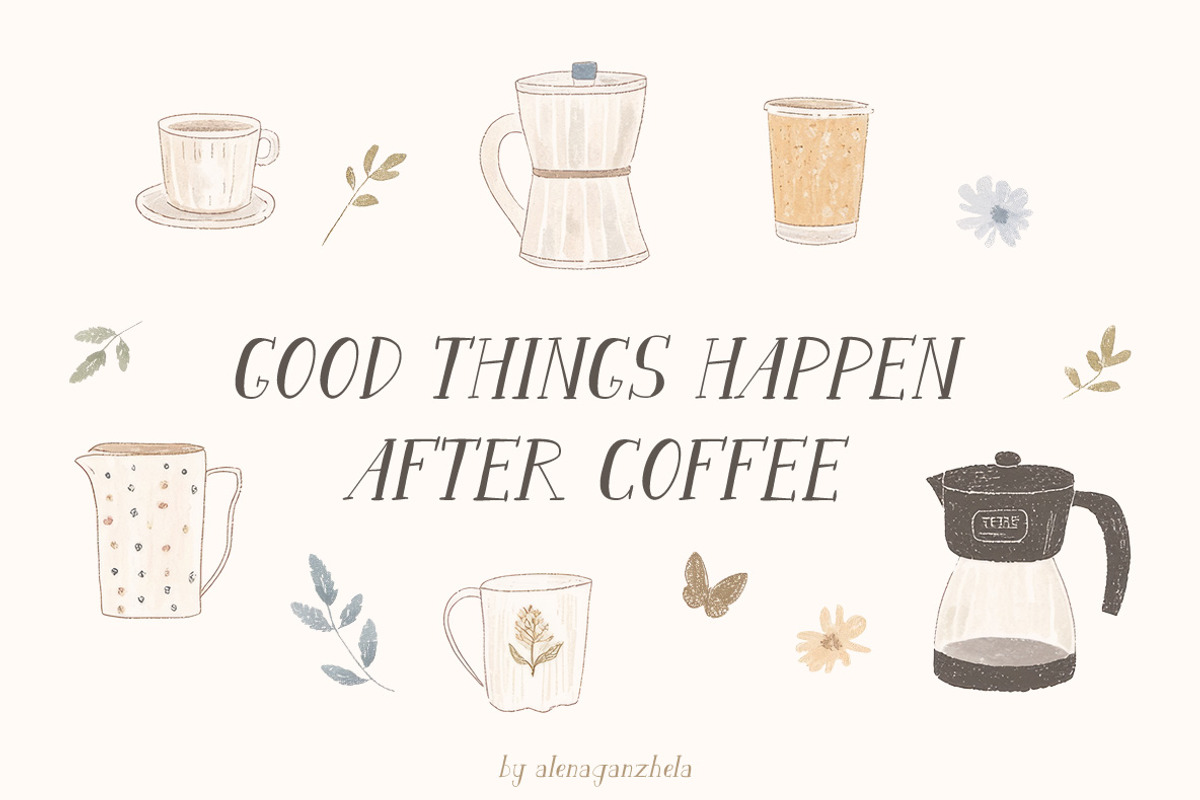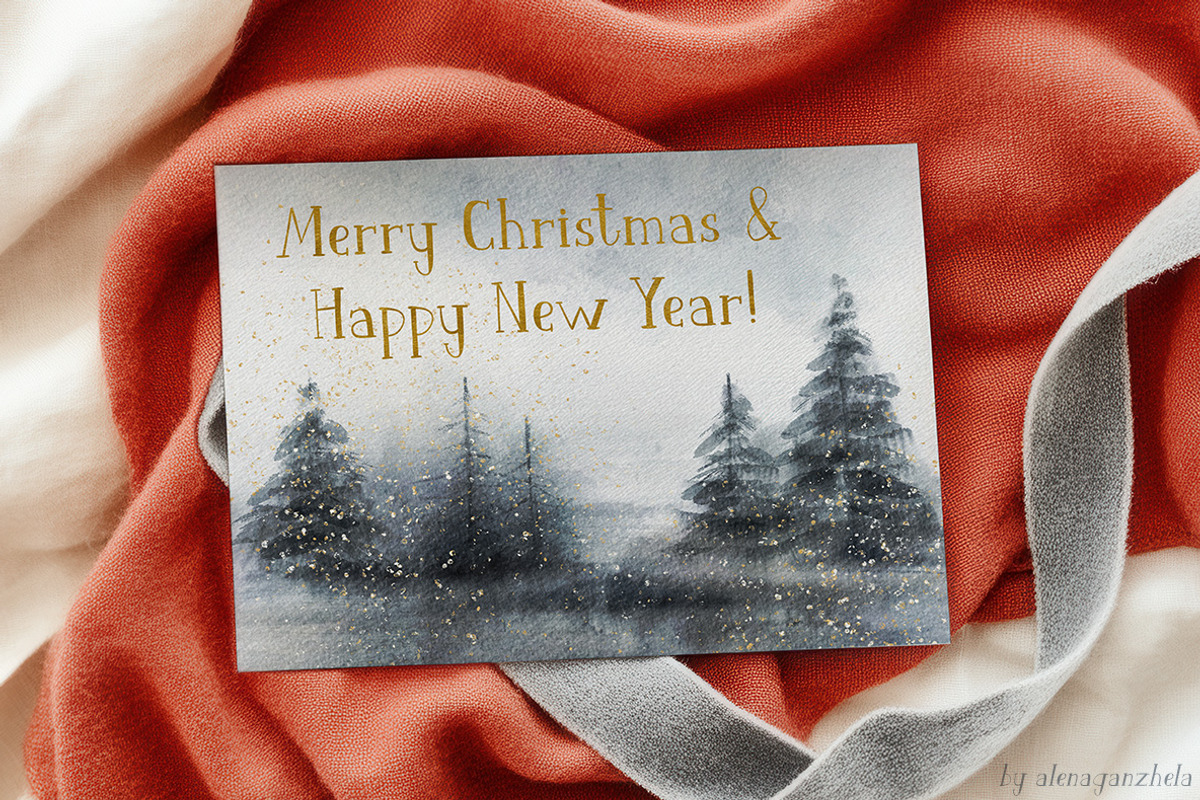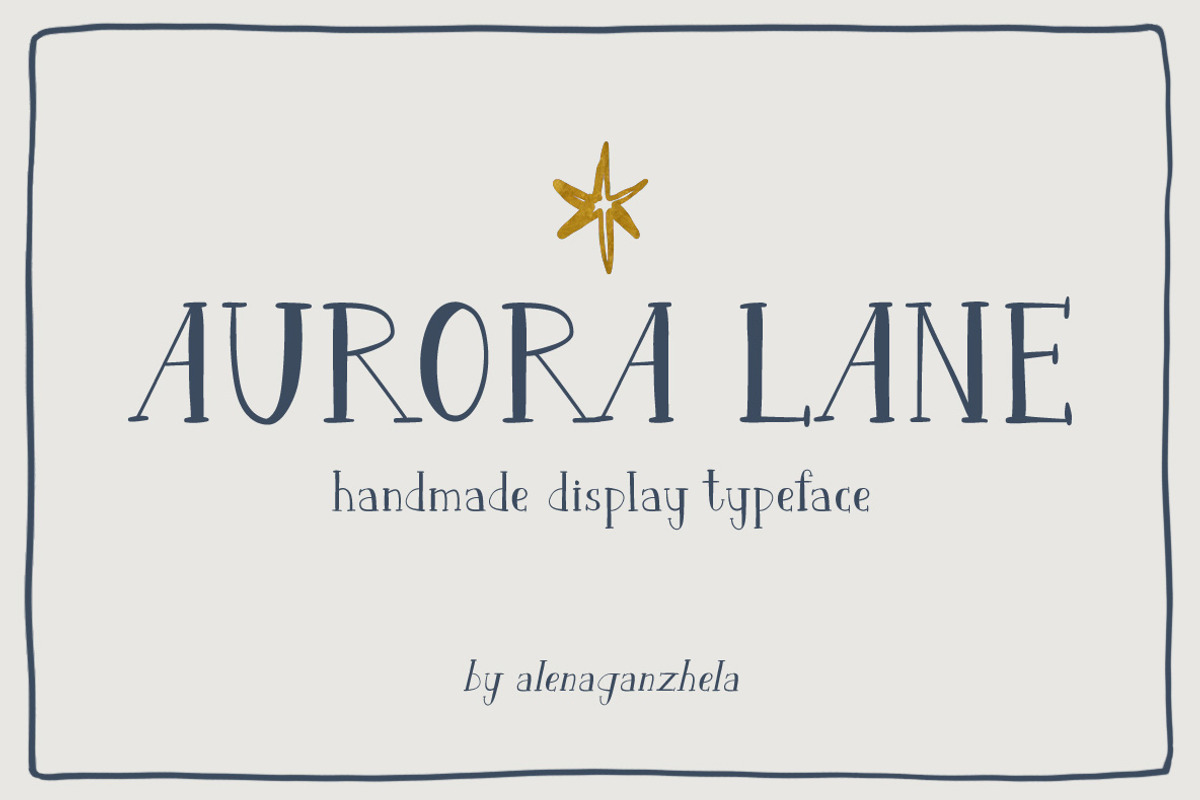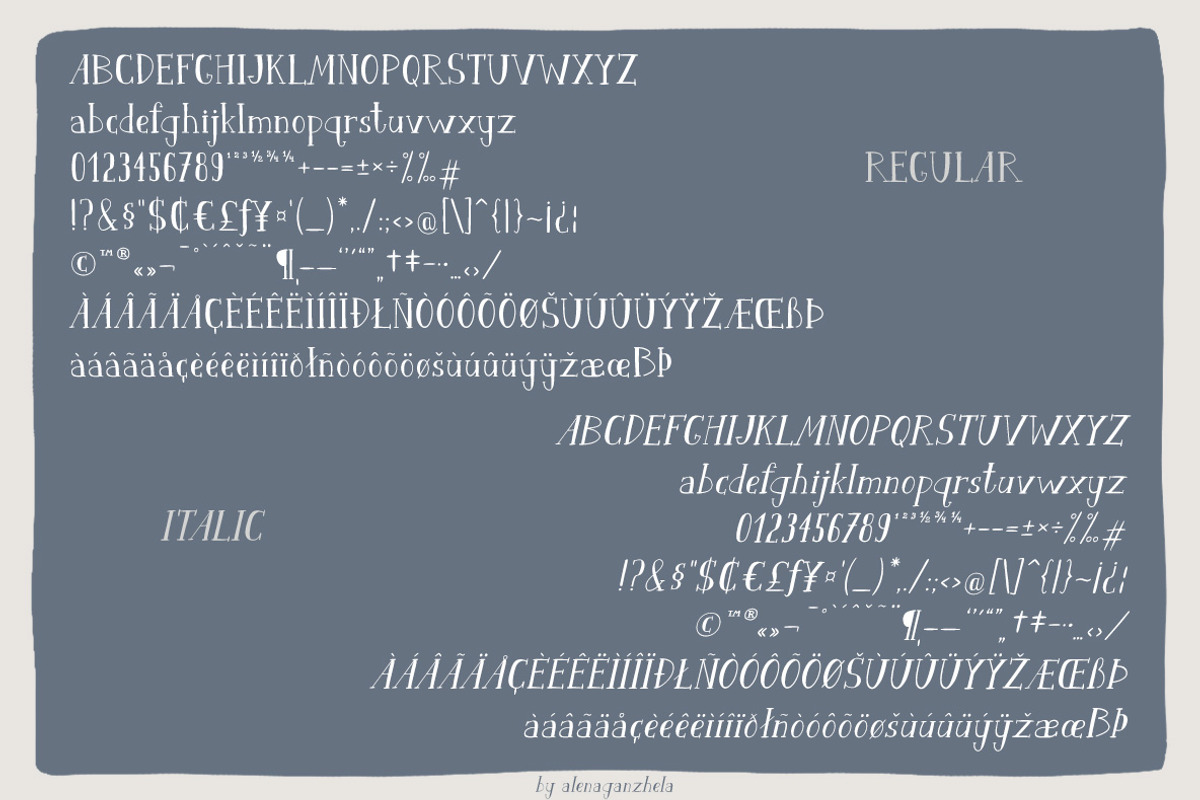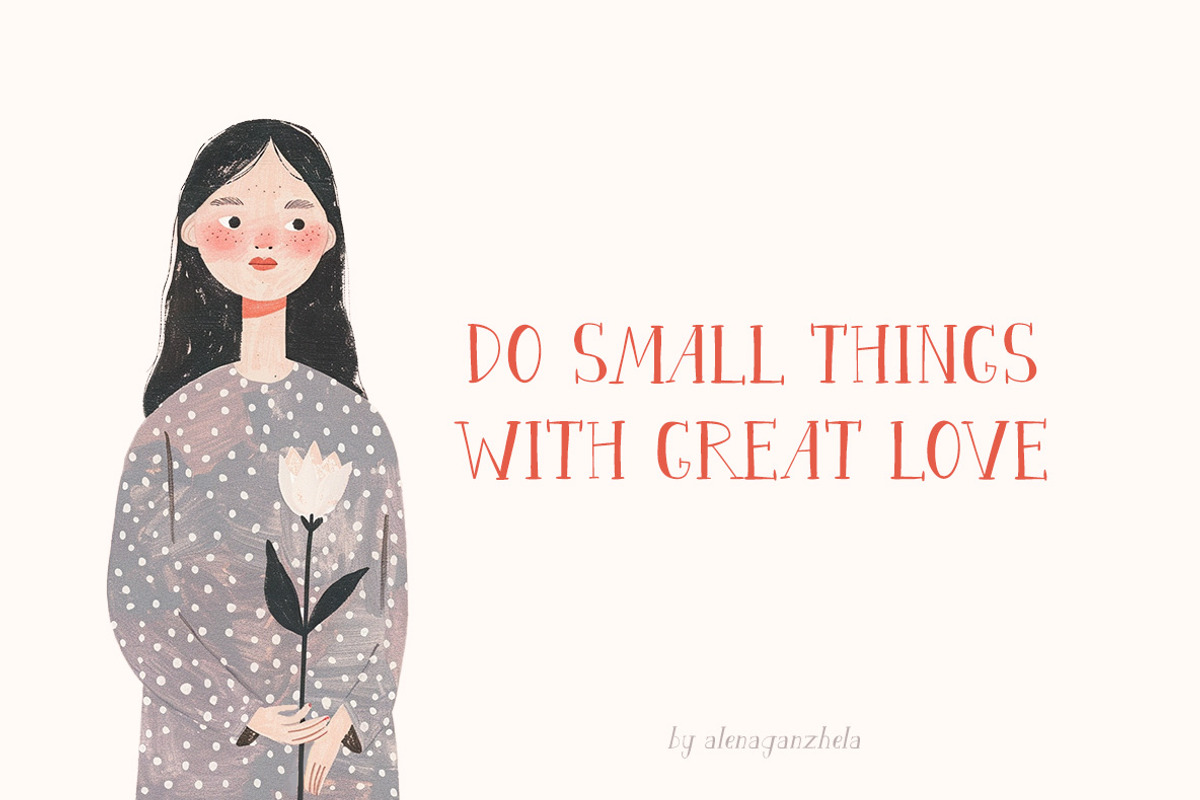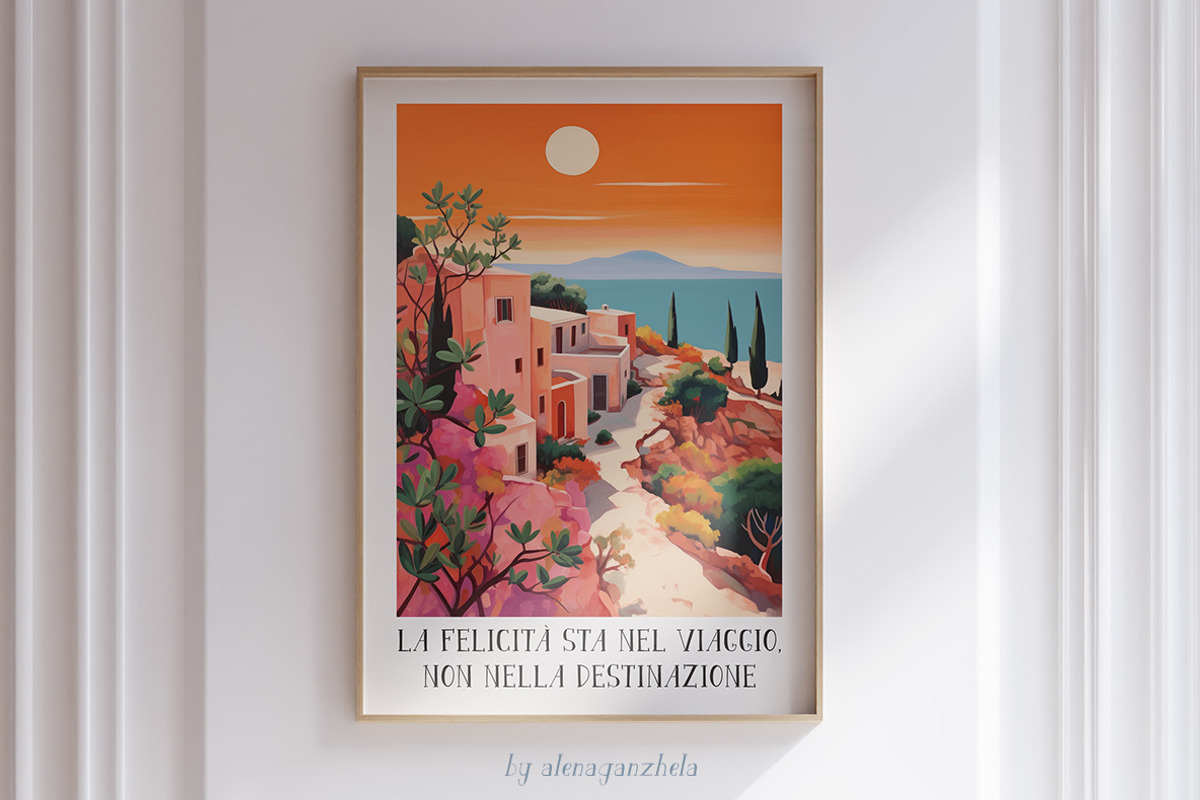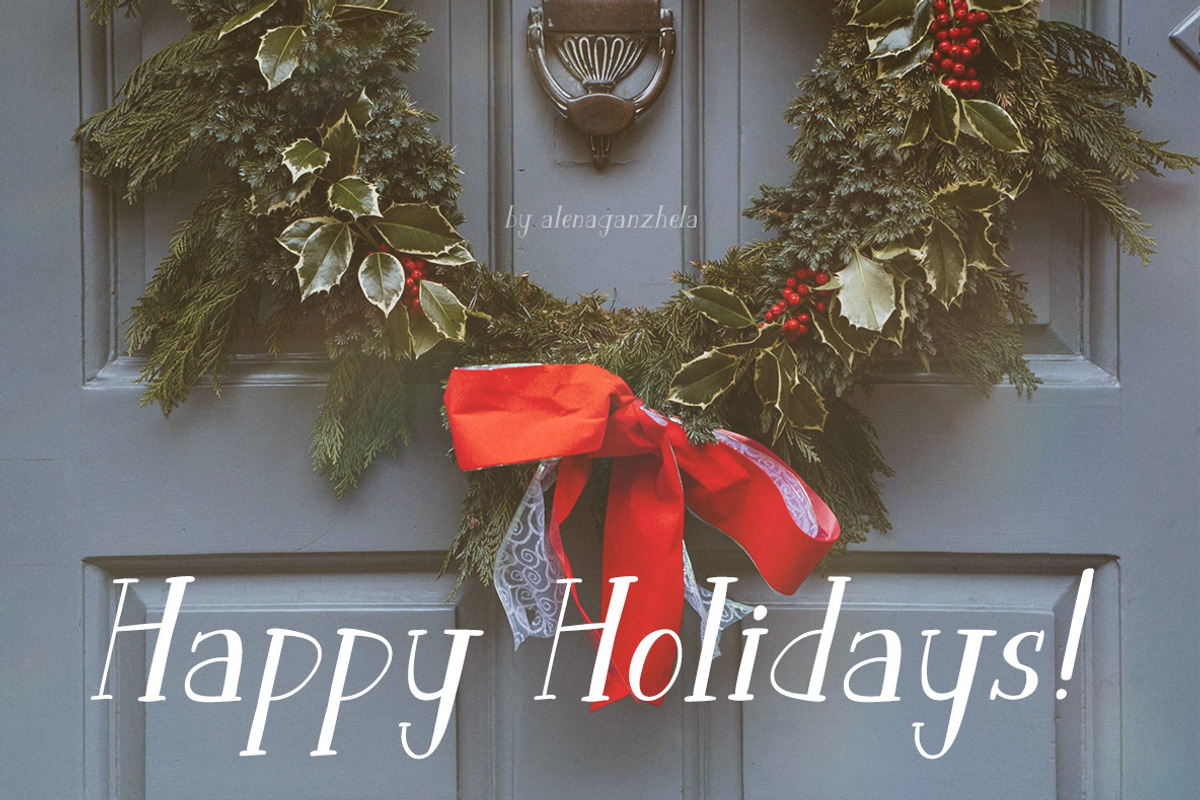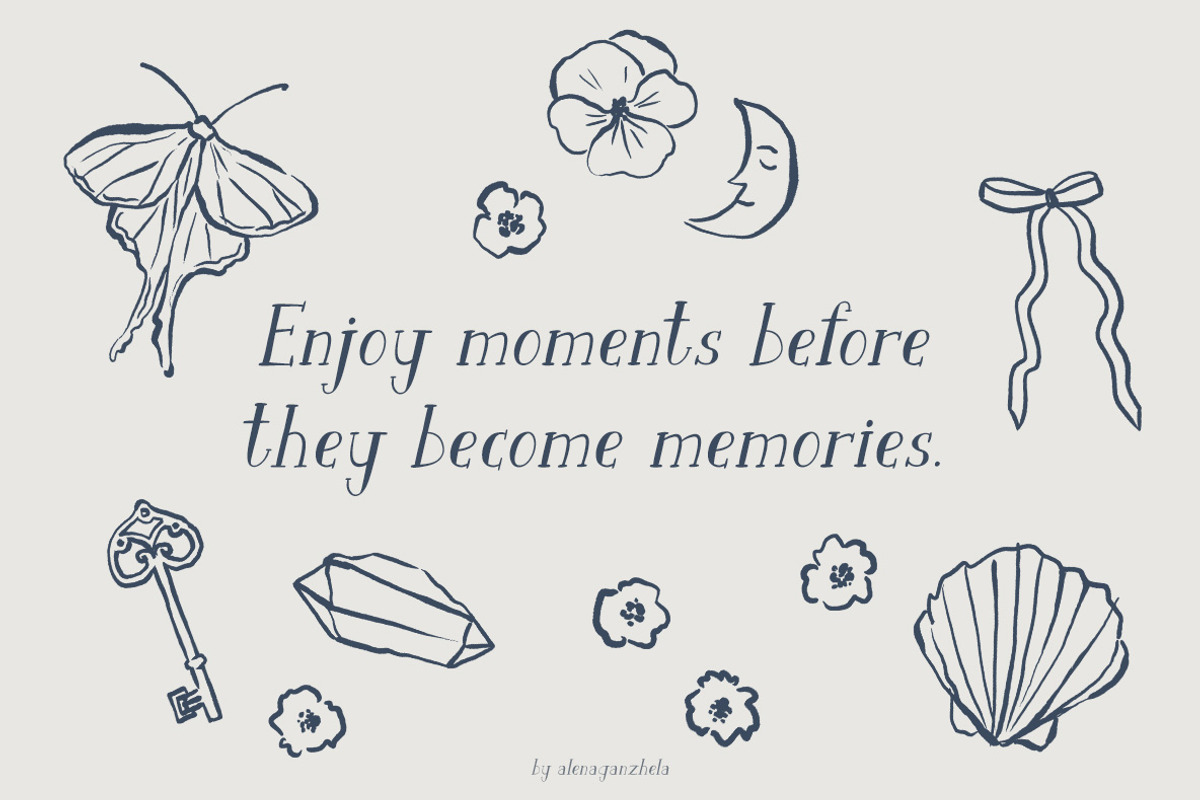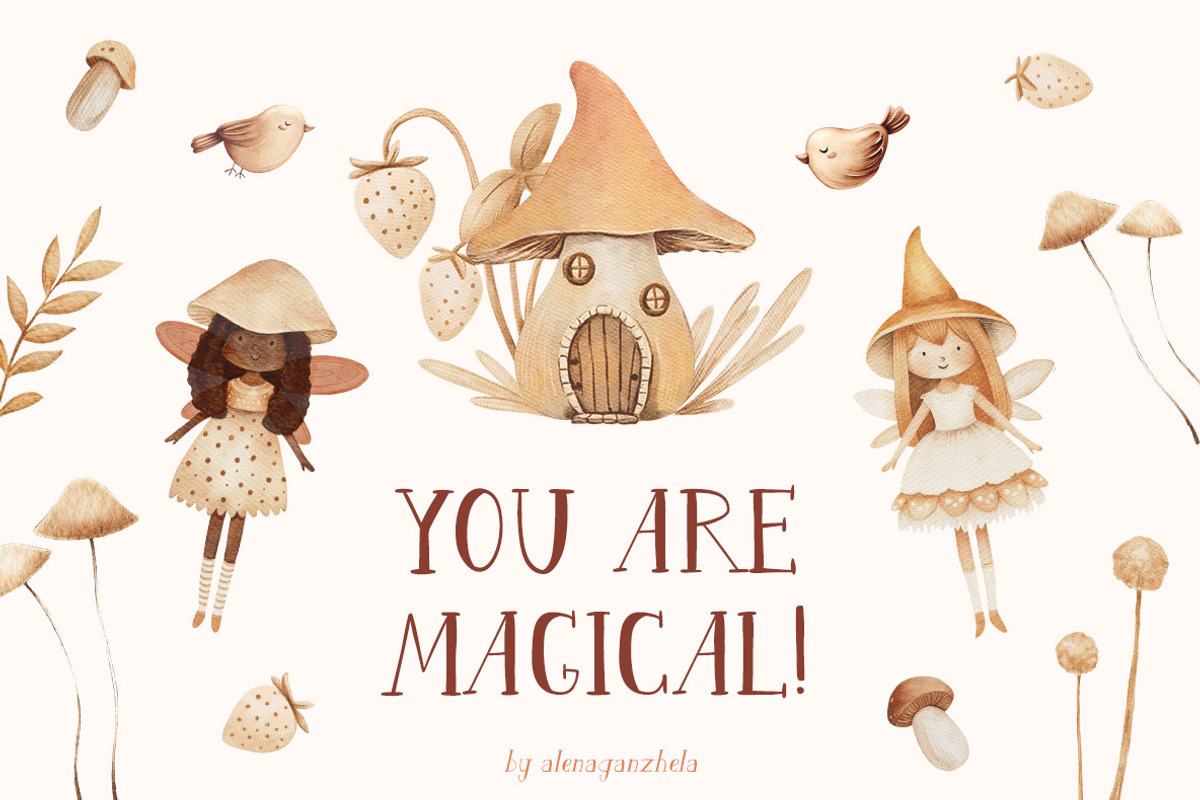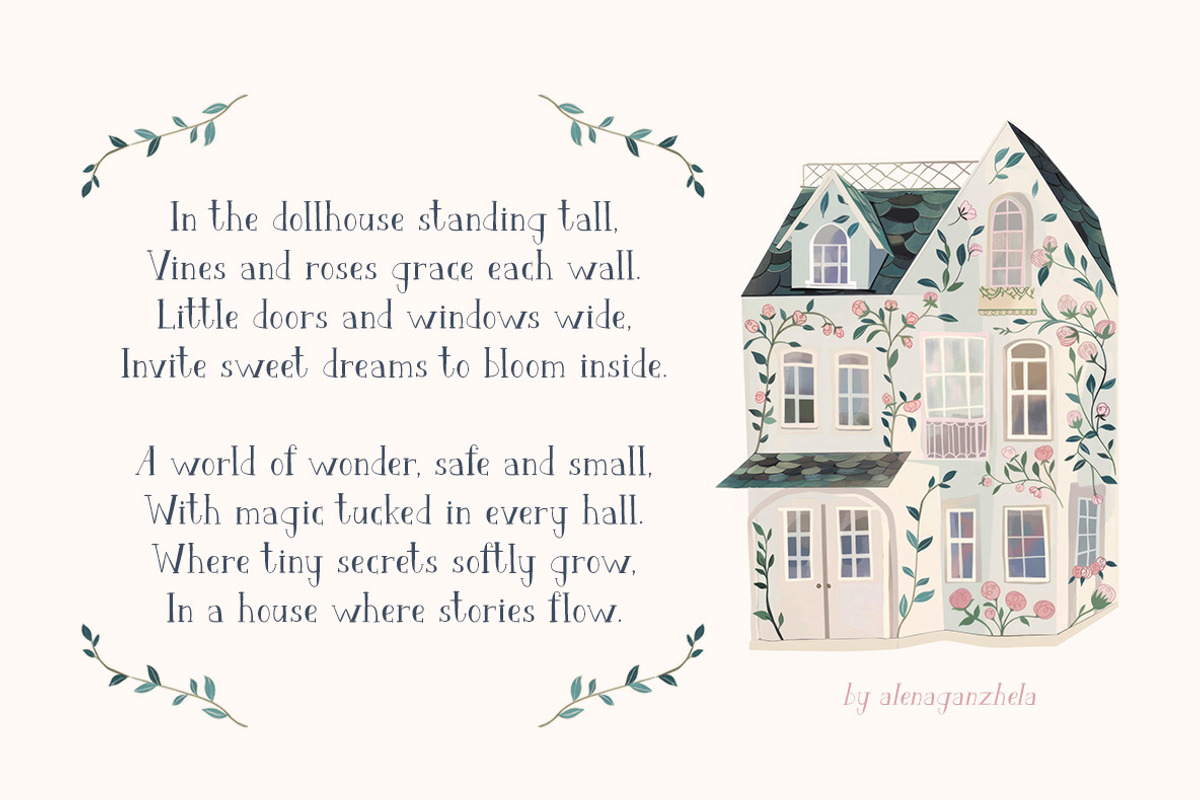
AURORA LANE - display typeface
Bring some kindness and a little magic to your projects with Aurora Lane - sweet and whimsy font. This unique handwritten typeface is perfect for those who want to add a touch of charm and cuteness to their work. Perfect for сhildren's books, modern posters, art prints, greeting cards, wedding invitations, logos, branding, social media posts and blogs, and much more!
MULTILINGUAL SUPPORT!